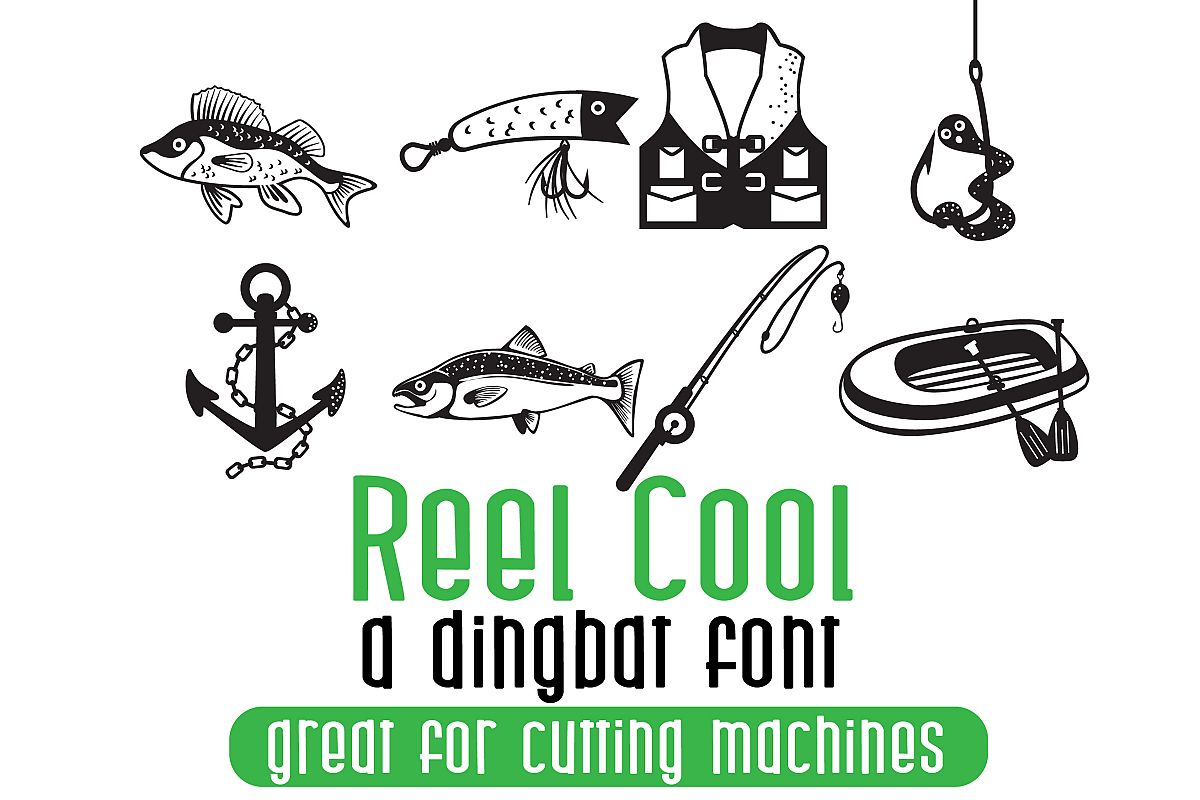
This dingbat font has 26 fishing images. These glyphs were made with care so they can be cut on a cutting machine.
Font includes the same characters in both the upper and lowercase.